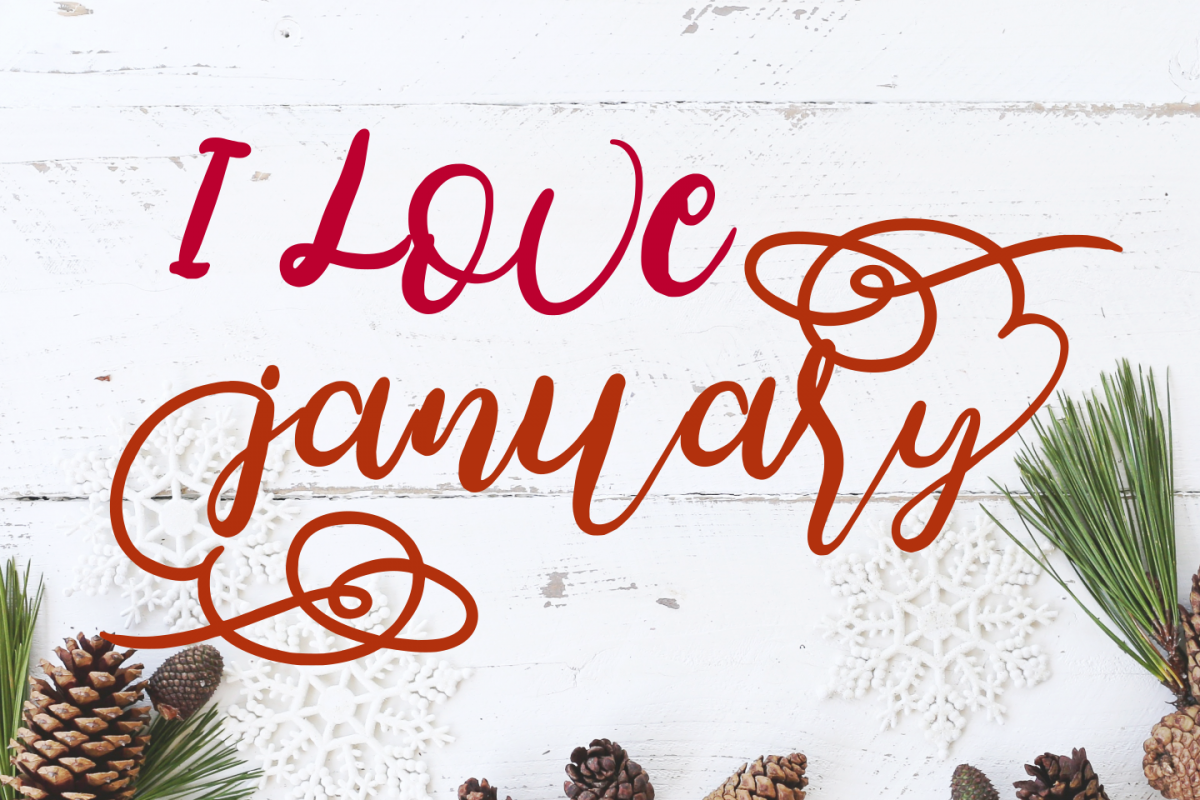
I love January Bounce Script Calligraphy
Beautiful script with bounce style. also coming in init and fina terminal form OpenType feature. with full lowercase alternate